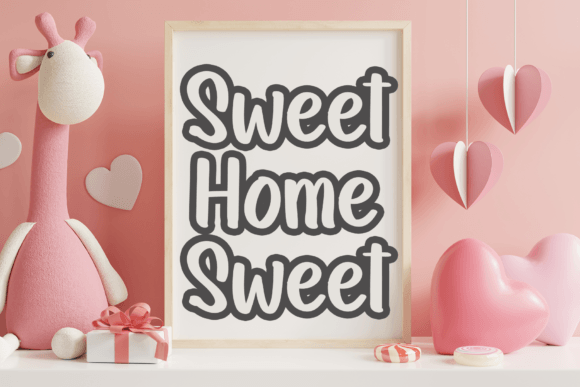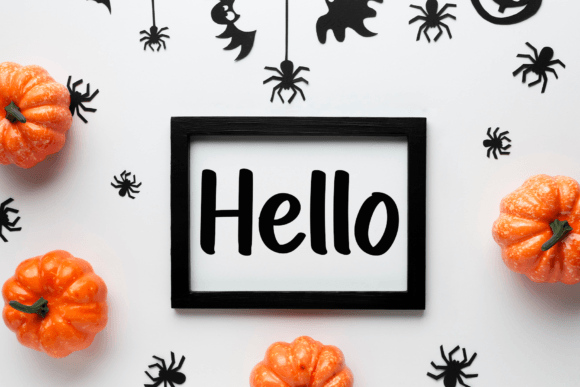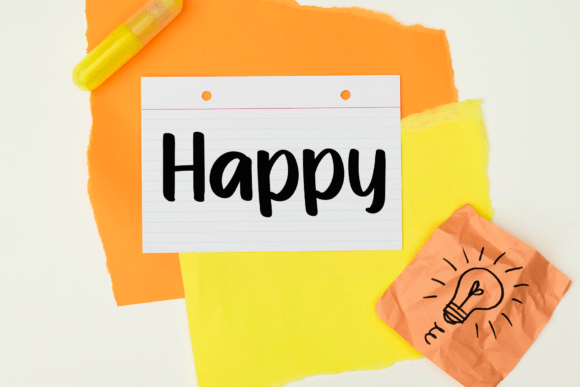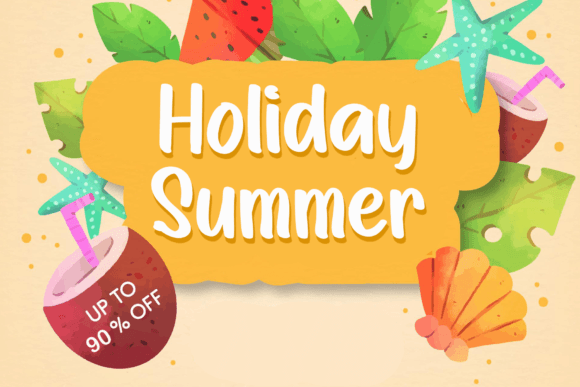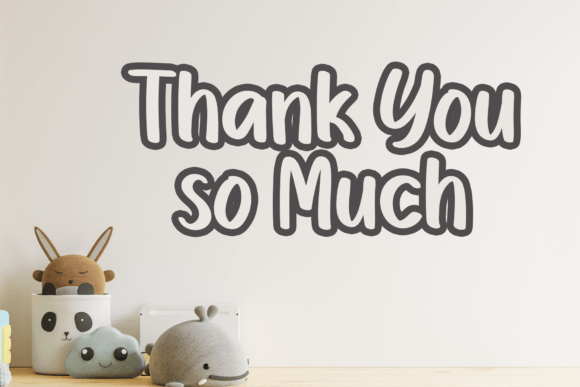
Hello Baby Font: Elevate Your Designs with a Modern and Fancy Display Font
Are you a designer or crafter looking for a font that can add a touch of elegance and sophistication to your projects? Look no further than the Hello Baby Font! This modern and fancy display font is perfect for creating stunning posters, logos, magazines, book covers, banners, and many more. In this article, we’ll dive into the features and benefits of the Hello Baby Font and explore how you can use it to take your designs to the next level.
What is Hello Baby Font?
Hello Baby Font is a stylish and contemporary display font designed to make a statement. Its unique and elegant lettering style makes it perfect for use in a variety of design projects, from advertising and marketing materials to crafts and DIY projects. The font is highly versatile and can be used to create a wide range of designs, from bold and dramatic to soft and feminine.
Key Features of Hello Baby Font
- Modern and Fancy Design: Hello Baby Font features a modern and fancy design that is sure to grab attention. Its elegant lettering style and unique flourishes make it perfect for creating stunning designs.
- Highly Versatile: This font is highly versatile and can be used in a variety of design projects, from posters and logos to magazines and book covers.
Benefits of Using Hello Baby Font
There are many benefits to using Hello Baby Font in your designs. Here are just a few:
- Adds Elegance and Sophistication: Hello Baby Font adds a touch of elegance and sophistication to your designs, making them stand out from the crowd.
- Increases Readability: The font’s clear and legible design makes it easy to read, even at small sizes.
- Perfect for Branding: Hello Baby Font is perfect for use in branding and advertising materials, such as logos, brochures, and business cards.
- Great for Crafts and DIY Projects: This font is also great for use in crafts and DIY projects, such as scrapbooking, card making, and iron-on designs.
Tips and Tricks for Using Hello Baby Font
Here are a few tips and tricks for using Hello Baby Font:
- Experiment with Different Sizes and Colors: Experiment with different sizes and colors to find the perfect combination for your design.
- Use it in Combination with Other Fonts: Use Hello Baby Font in combination with other fonts to create a unique and interesting design.
- Add Flourishes and Graphics: Add flourishes and graphics to your design to make it more visually appealing.